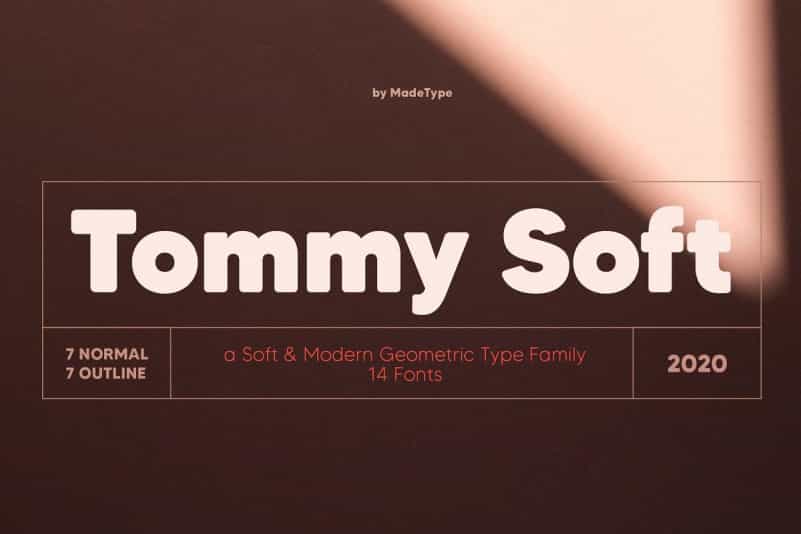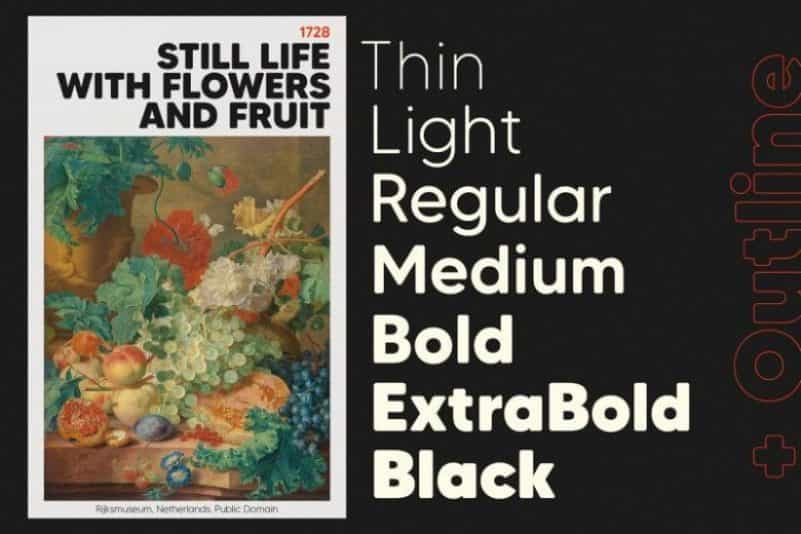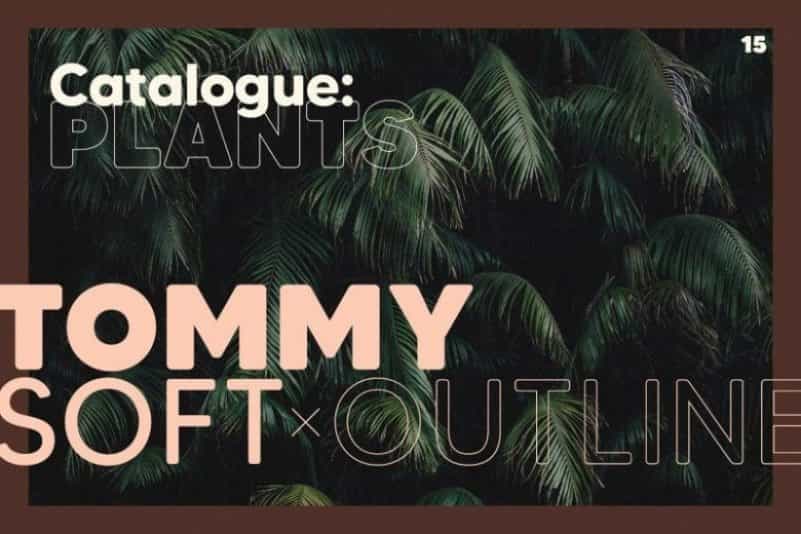
MADE Tommy Soft is a soft & modern geometric type family. The Tommy Soft type family includes: 7 normal and 7 soft style outline. MADE Tommy Soft will perfect for many project: Fashion, magazines, logo, branding photography invitation wedding invitations quotes blog headers posters advertisements postcards book websites and so on.